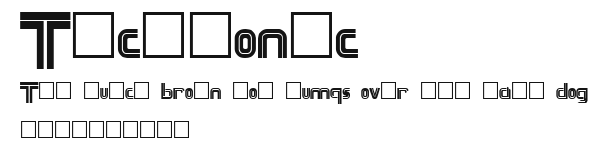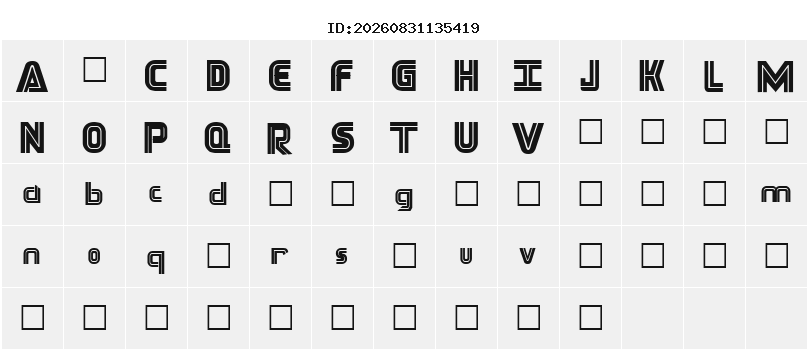
Techtonic Preview
• Font Name: Techtonic
• Font ID: Alts:Techtonic
• Full Font Name: Techtonic
• Version: 1.0 Fri Nov 27 13:20:41 1998
• PostScript Name: Techtonic
• Character Count: 35
About Techtonic.ttf
Techtonic.ttf is a modern, elegant sans-serif font designed for ultimate readability and visual harmony. Perfect for branding, headlines, web design, and print materials.